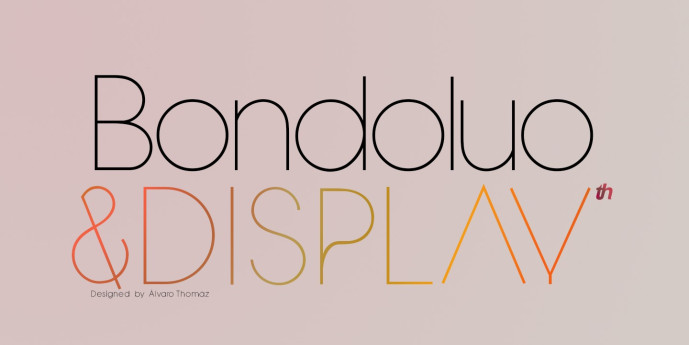
Bondoluo Font
Designer: Álvaro Thomáz Fonts
Bondoluo Font is a geometric font family developed by Álvaro Thomáz in 2012, The creation process was inspired by 3 geometric forms – triangle, circles and squares – and 2 amazing fonts – Futura® and URW Gothic. The Bondoluo Display font was inspired by Diamonds by HVD. Be fashionable with Bondoluo fonts!